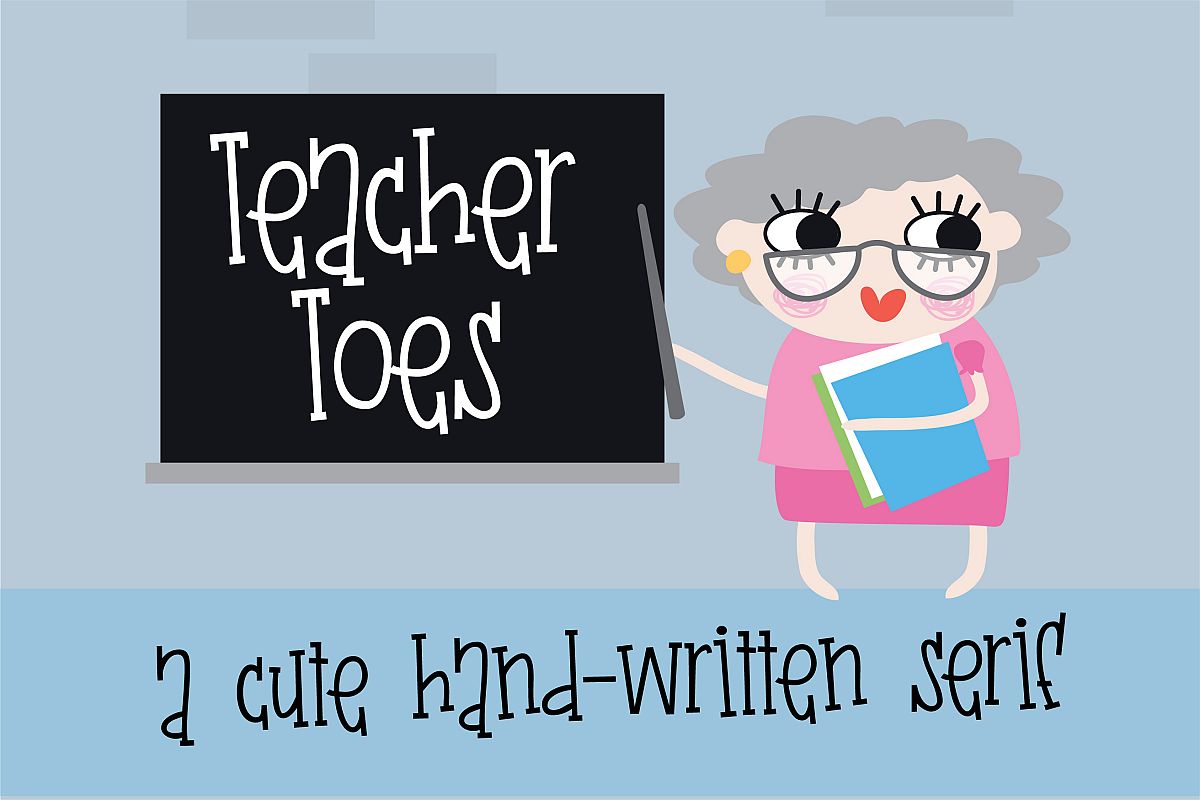
PN Teacher Toes
This youthful serif font is whimsical and fun. There are four bonus stick figure teachers that you can access through your system's character map.